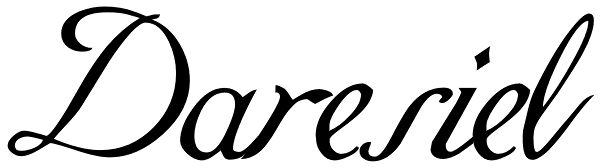
Daresiel
Daresiel is an elegant script font based on a sample of Edwardian period hand lettering. It has elaborate curls and embellishments and some other interesting features like the elongated 'f' character.
Daresiel Font